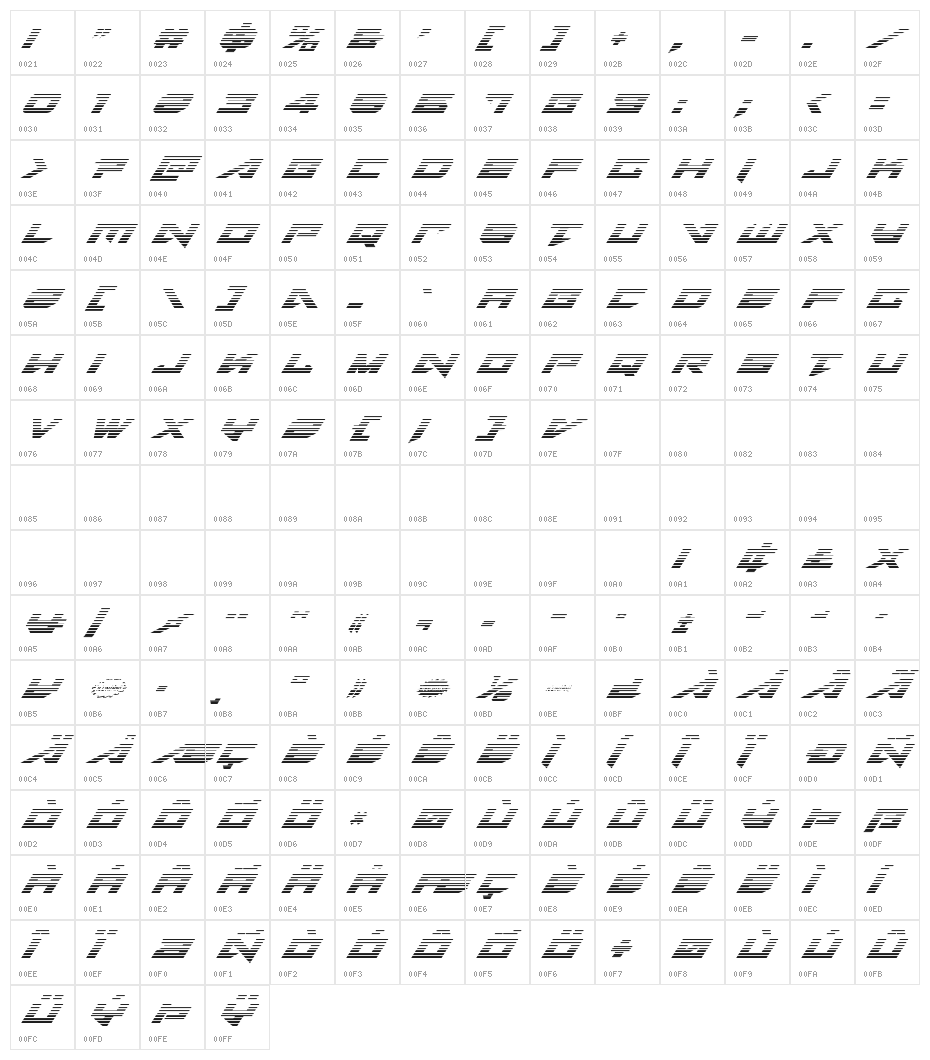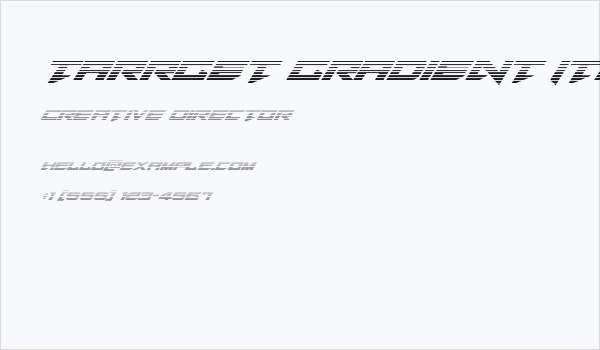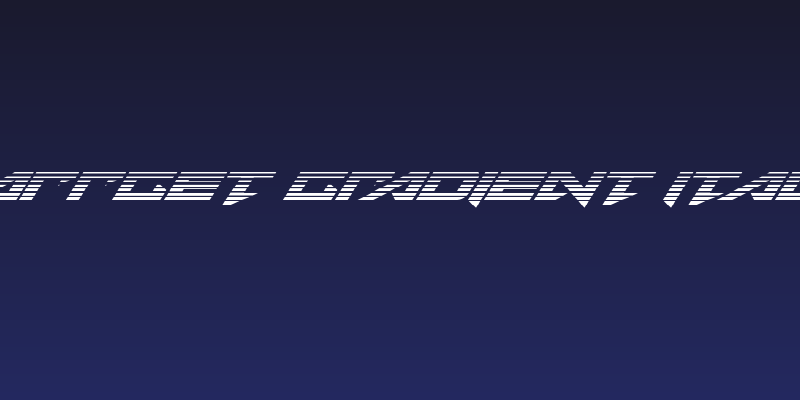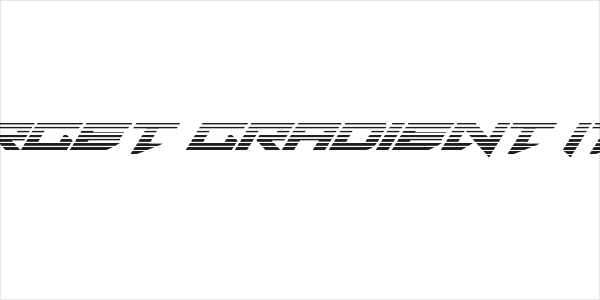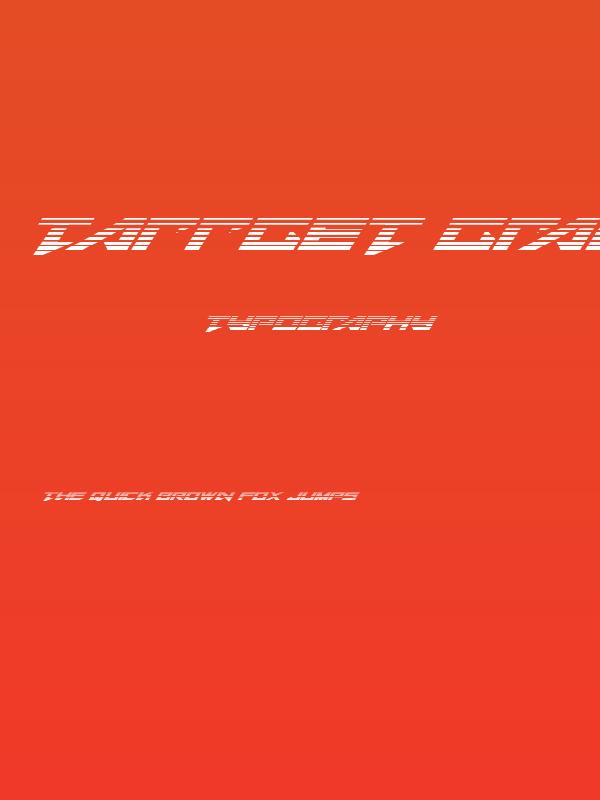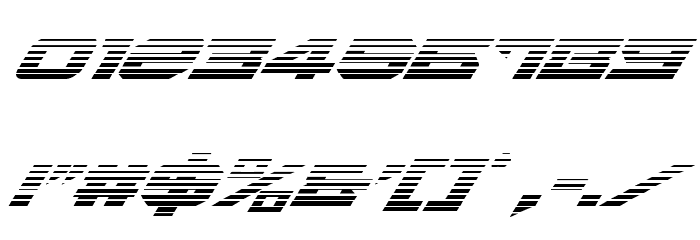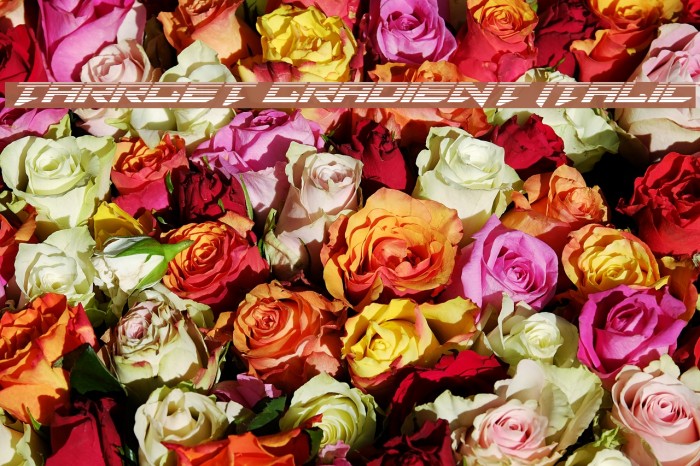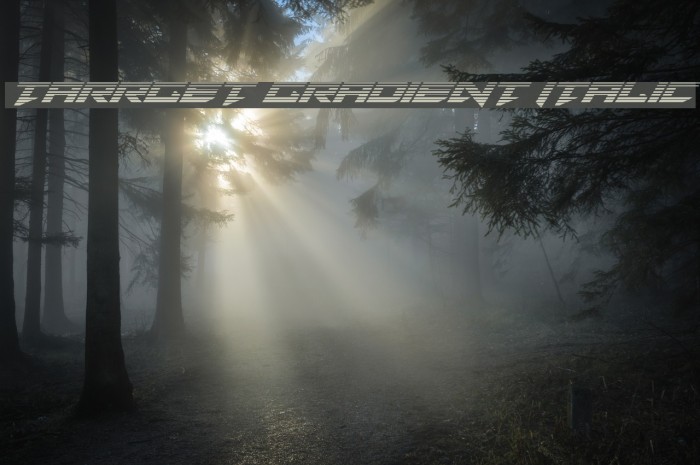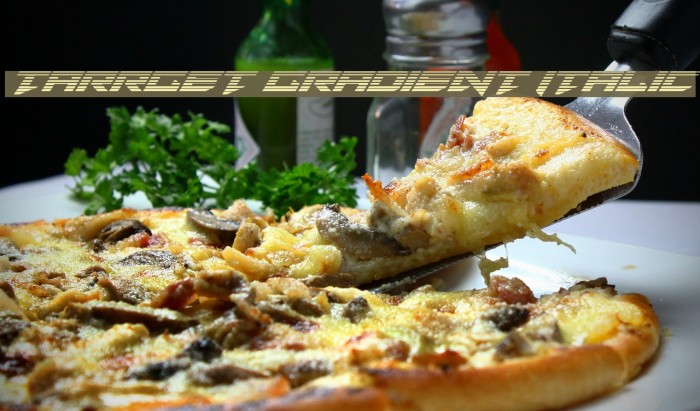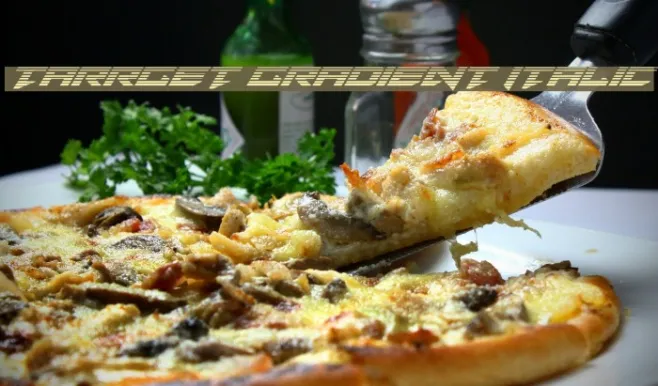
Tarrget Gradient Italic Font
Tarrget Gradient Italic Description
This font features a dynamic, italicized style with a gradient effect created by horizontal lines. The characters are bold and slanted, giving a sense of motion and speed. The design is modern and futuristic, with a distinct visual impact that makes it suitable for attention-grabbing headlines or logos. The uppercase and lowercase letters maintain a consistent style, and the numerals and special characters are designed to match the overall aesthetic. The font's unique appearance is both decorative and functional, making it versatile for various creative projects.
| Proposed Projects | Ideal for sports branding, futuristic designs, automotive advertisements, and dynamic event posters. |